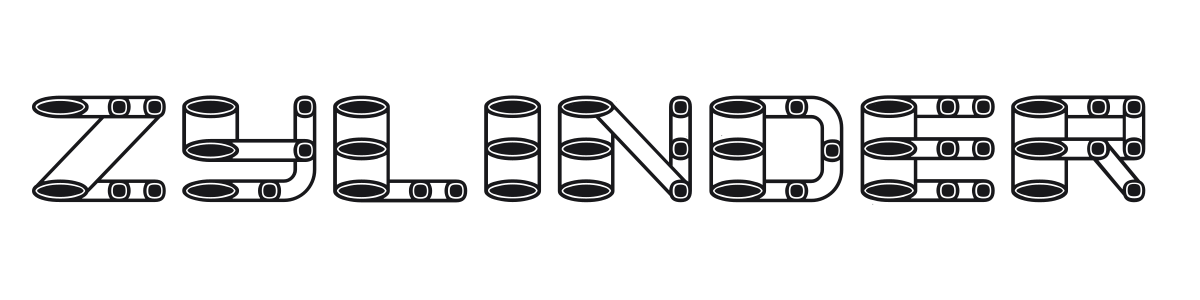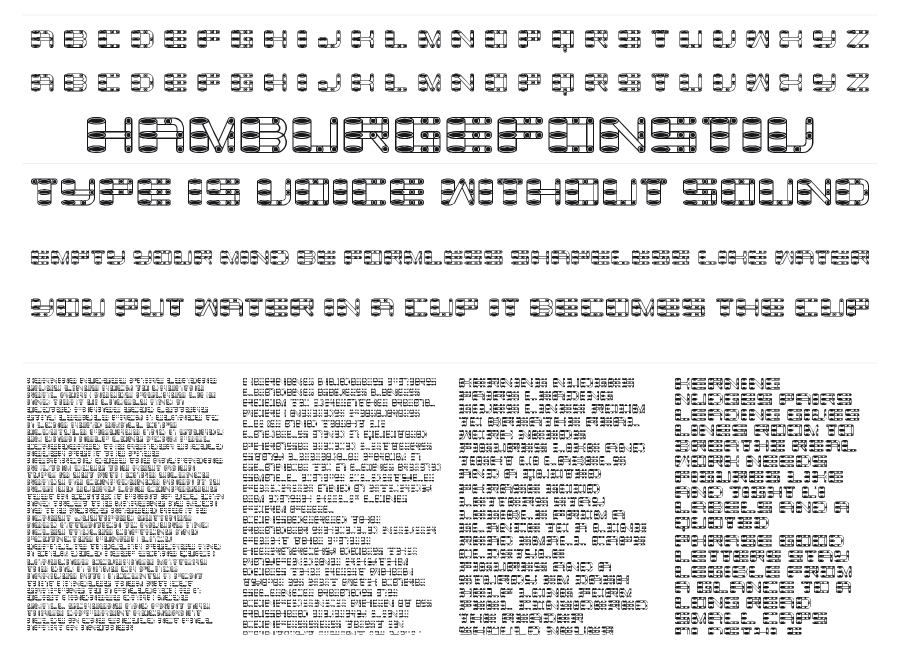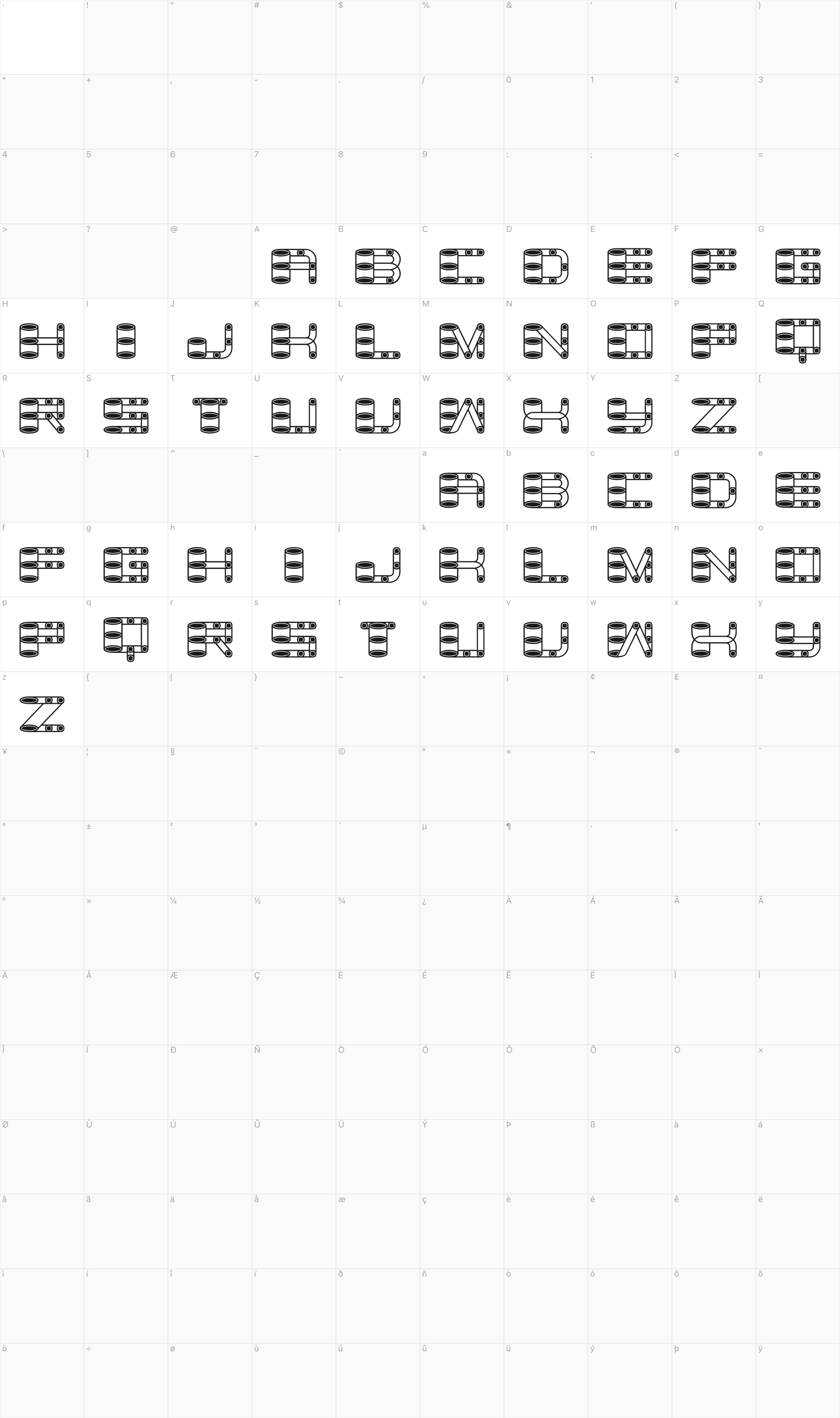
Zylinder
Zylinder is a bold geometric display font built to look like characters assembled from polished metal cylinders and riveted tubing. Each letter features horizontal striping within thick outlined strokes, with tiny circular details at intersections that reinforce the mechanical, engineered aesthetic. It carries a strong retro-industrial personality that draws on Art Deco and Soviet Constructivist traditions.